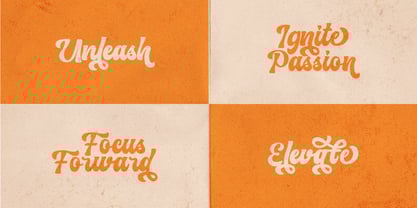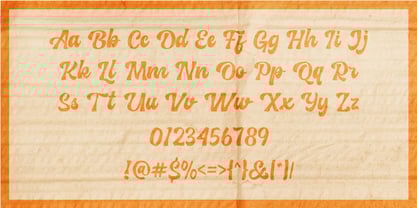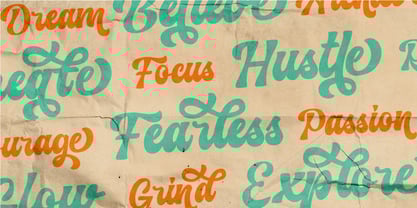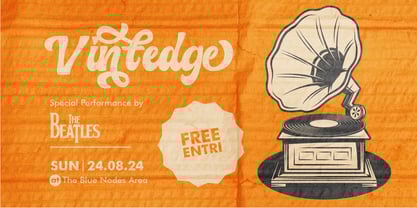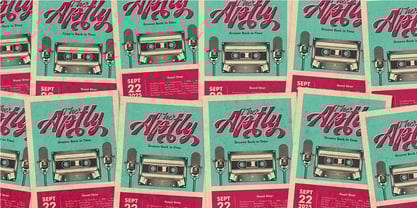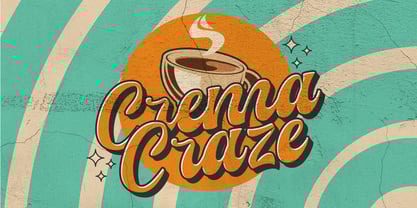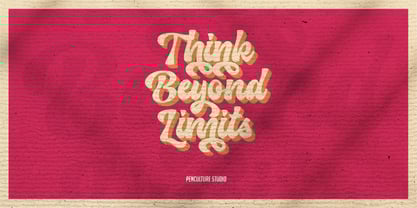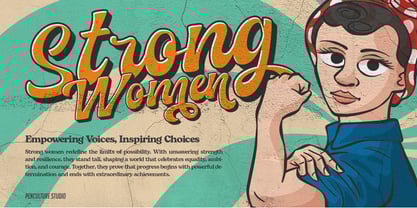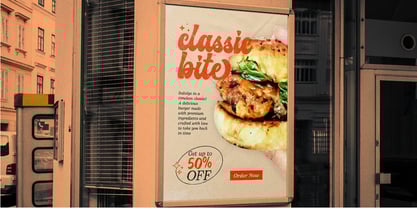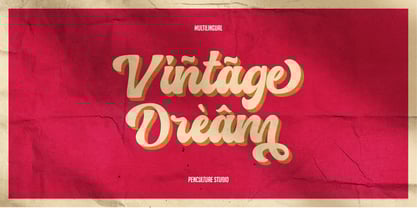
Manthel
by Pen Culture
The Manthel Font Family was designed by Revo Farsiky and published by Pen Culture. Manthel contains 1 styles. More about this family
Introducing "Manthel Retro Script Font"
Manthel is a retro-inspired script font that combines vintage charm with modern versatility, perfect for creating designs with timeless appeal. Featuring an array of ligature and stylish alternates, Manthel allows you to customize your text with unique flair
Drawing inspiration from classic hand-lettering and nostalgic advertising, this font brings sophistication and character to any project, effortlessly blending nostalgia with contemporary style.